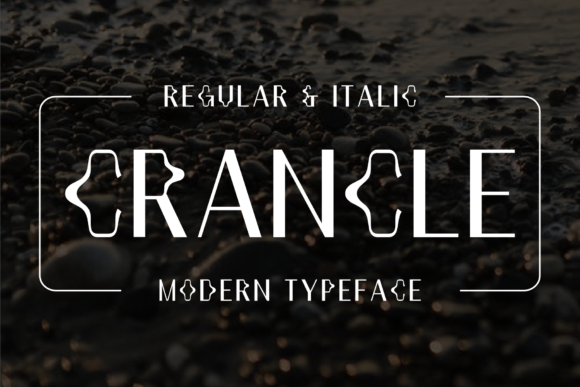
Introducing Crancle Font, the ultimate typeface for crafting web pages that captivate and convert. Designed by renowned typographer Roman Caseru, Crancle effortlessly blends elegance and readability, leaving a lasting impression on every visitor. Its crisp, minimalist lines exude sophistication, while its subtle curves add a touch of warmth and approachability.
Whether you're showcasing your latest product or service, crafting engaging blog posts, or nurturing leads through email campaigns, Crancle Font empowers you to communicate with clarity and flair. Its unwavering legibility ensures that your message is received loud and clear, while its versatility allows you to adapt it seamlessly to any design aesthetic.
Embrace Crancle Font and watch your web pages transform into captivating masterpieces. Its timeless appeal and unwavering functionality will elevate your online presence, attracting visitors, boosting engagement, and driving conversions. Let the beauty of Crancle Font ignite your creativity and propel your web pages to new heights of success.